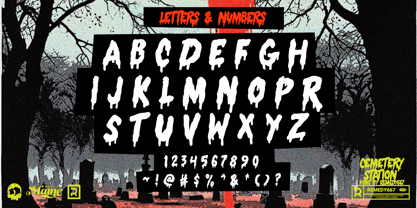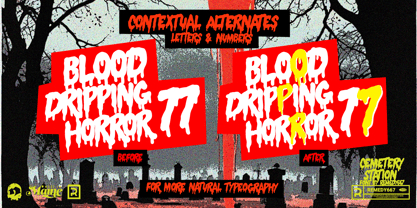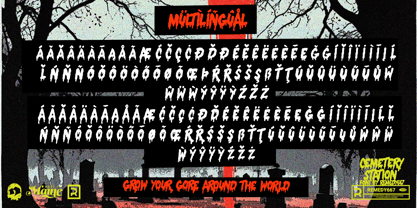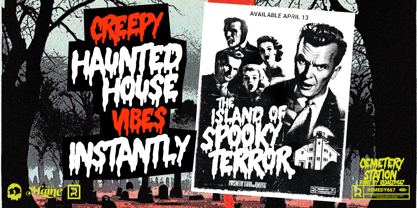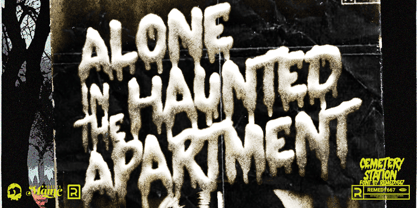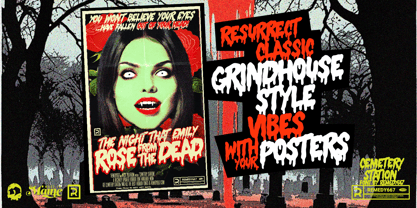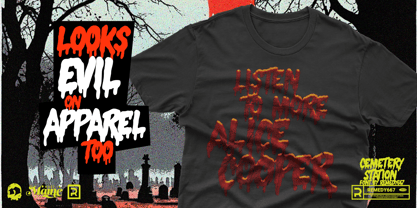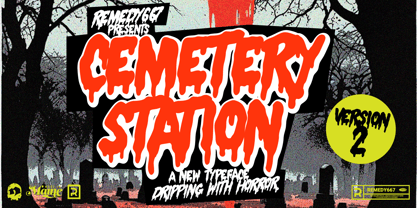
Cemetery Station
by Remedy667
The Cemetery Station Font Family was designed by Nick Polifroni and published by Remedy667. Cemetery Station contains 4 styles and family package options. More about this family
Get creative with Cemetery Station! This spooky new font from Remedy667 is dripping with style and perfect for any horror project. With its unique blend of dripping style and contextual alternates for numbers and letters, this font is perfect for all things eerie.
Designers: Nick Polifroni
Foundry: Remedy667